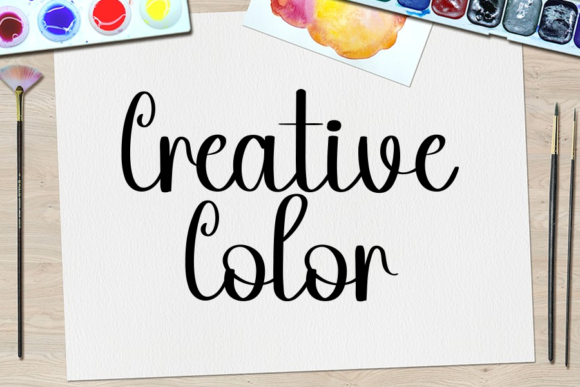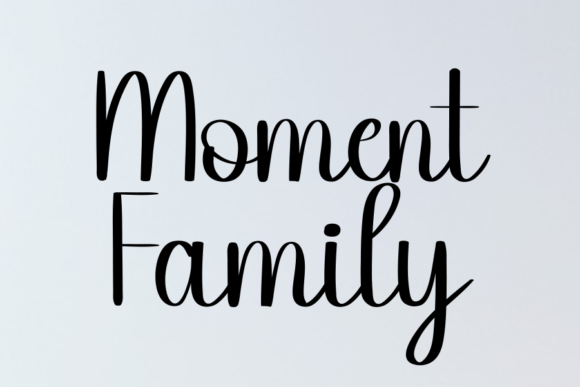
Cooking Font
db-ku.com - Script & Handwritten -- Cooking is a relaxed handwritten font that has a modern yet whimsical style. It will undoubtedly immerse your designs into a fun, cool world.